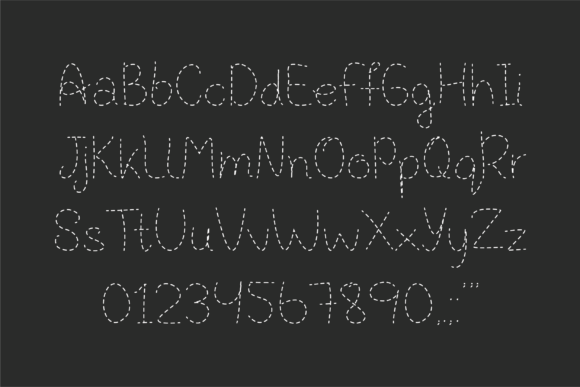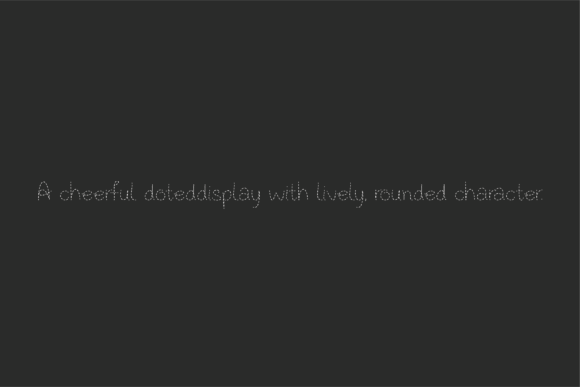
The Delightful DotStitch Font: A Designer’s New Best Friend
I’ll never forget the time I was working on a children’s educational project, and I just couldn’t find the perfect font to bring it to life. The design needed to be playful, yet readable, and I wanted to add a touch of handmade charm. That’s when I stumbled upon DotStitch, and it instantly became my go-to font for a wide range of creative projects.
A Personal Review: What I Love About DotStitch
DotStitch is an inventive handwritten display font that draws inspiration from tasteful sewing patterns and precise tracing worksheets. Here are some things I absolutely love about it:
- ✨ The endearing dotted stitch detailing adds a unique touch to any design
- ✅ Monoline strokes and evenly distributed dots create a gentle handmade essence
- 💡 Perfect for enhancing children’s educational resources, embroidery designs, and DIY projects
- 📚 Seamlessly blends into scrapbooking endeavors and invigorates creative packaging designs
While DotStitch is an amazing font, there are a few minor things to keep in mind:
- 🤔 Some users might find the font a bit too playful for very formal projects
- ⚠️ The dotted detailing might not be suitable for very small font sizes
The Story Behind DotStitch
DotStitch was designed with the intention of capturing the charm of handmade sewing patterns and tracing worksheets. The creator aimed to craft a font that would bring a touch of warmth and personality to various design projects. By combining monoline strokes with dotted detailing, DotStitch was born – a font that’s both playful and readable.
DotStitch has become an essential part of my design toolkit, and I’m confident it will do the same for you. Its unique blend of playfulness and readability makes it perfect for a wide range of creative projects. So go ahead, give DotStitch a try, and see how it can bring your designs to life!